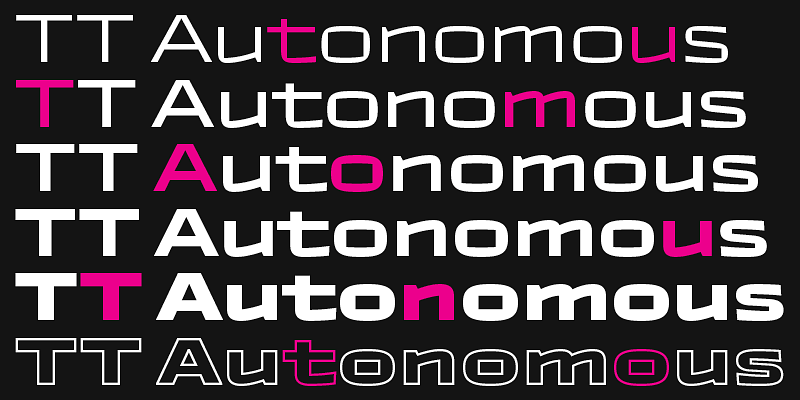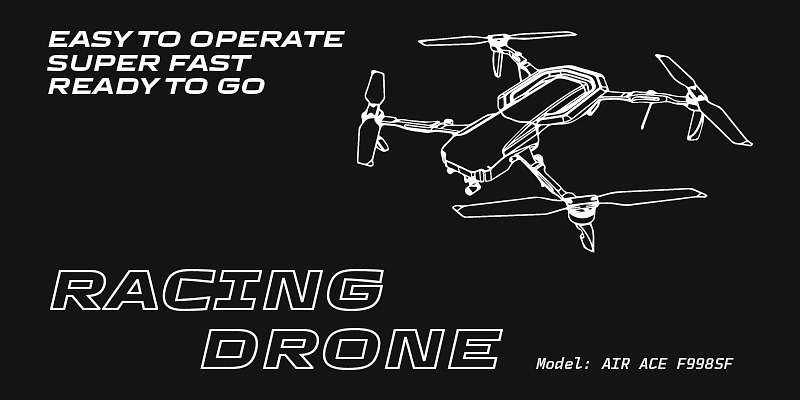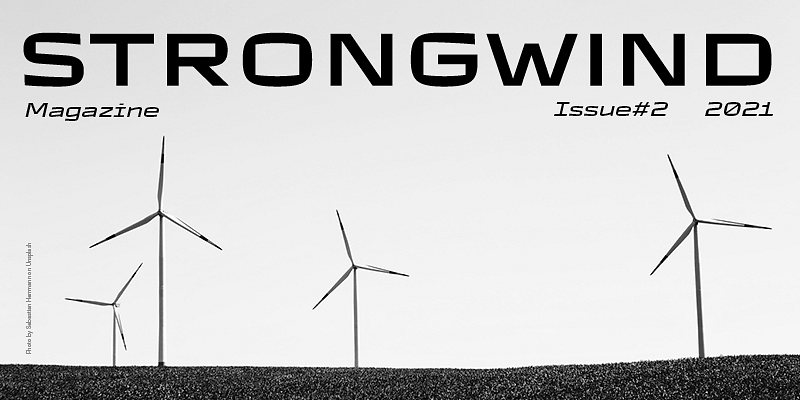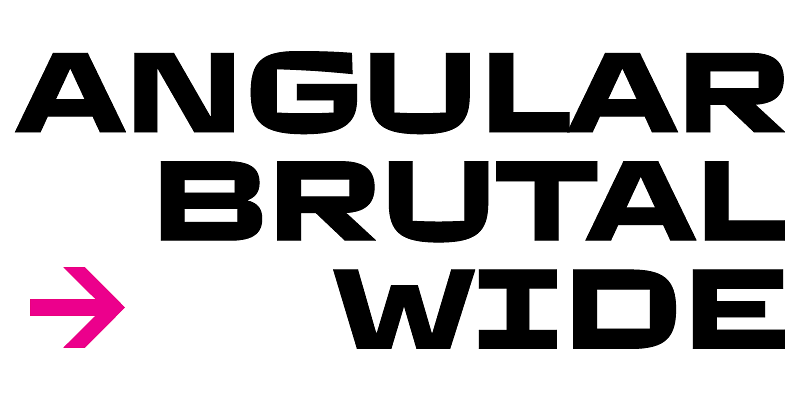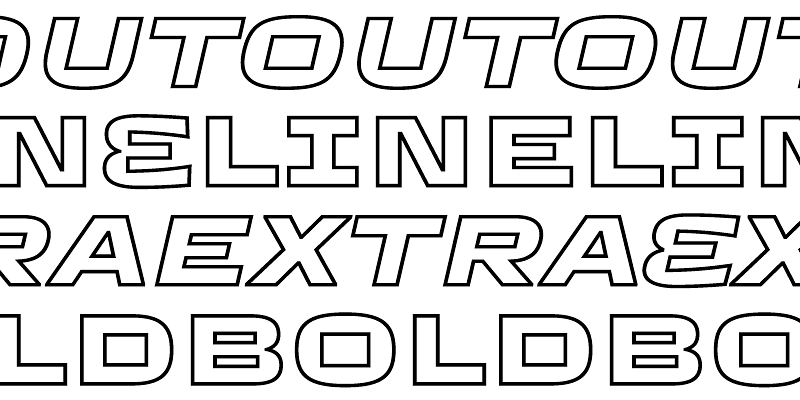
TT Autonomous is a modern brutal technological sans serif. The basic visual characteristic of the typeface is the noticeable squareness of the characters and angular internal space. In addition, the typeface proportions tend to appear monospaced, but there are only some styles that are really monospaced. The width of the characters is inspired by automobile logotype proportions, which are mostly rather wide.